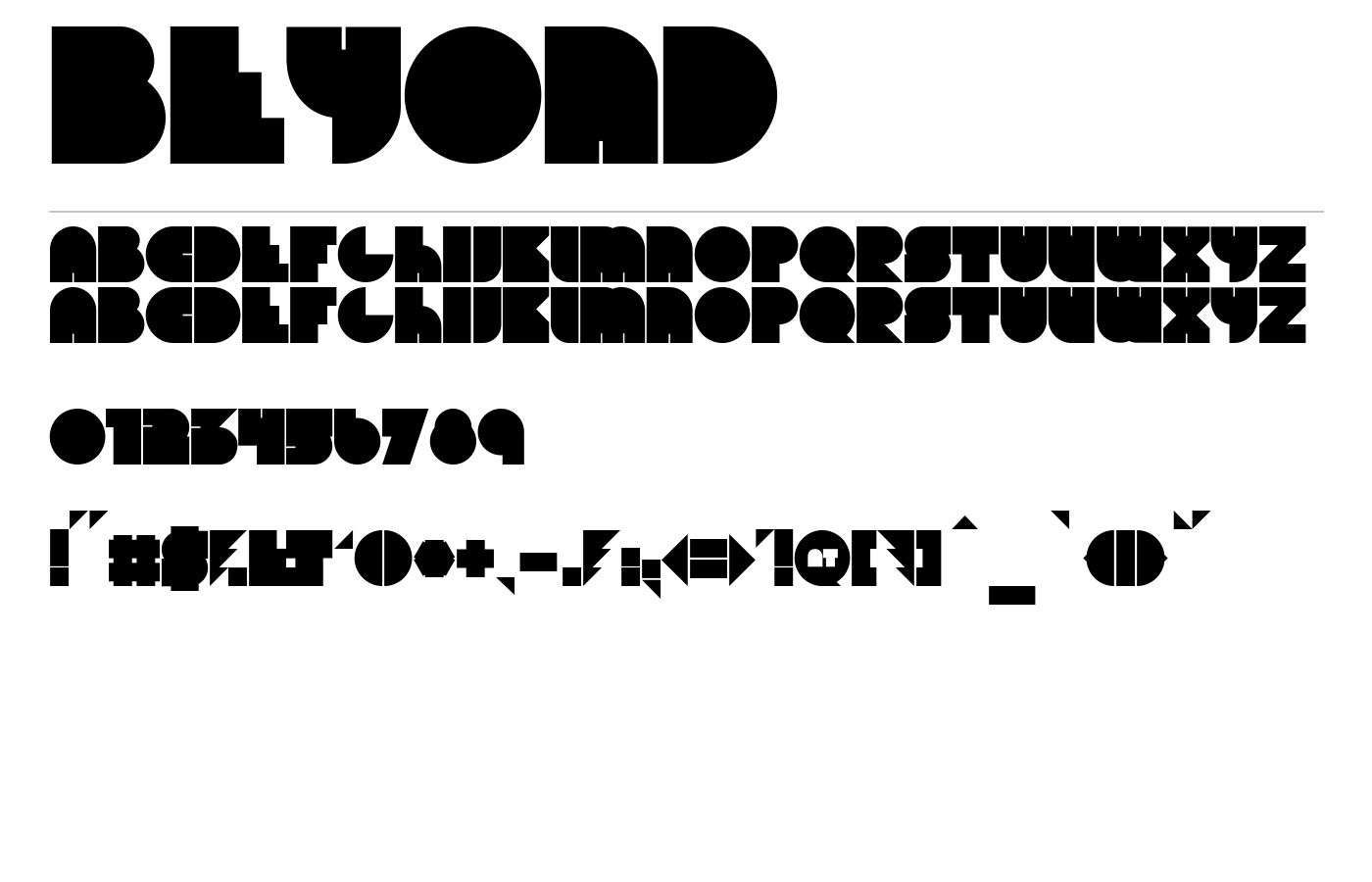
Beyond Font is a bold and striking geometric sans serif that features ultra-heavy weight and wide letterforms with a playful yet modern feel. Its solid, blocky shapes and minimal contrast create a strong visual impact, making it perfect for eye-catching headlines, logos, and creative posters where a contemporary and artistic vibe is desired. This font excels in branding and display uses where boldness and uniqueness are key to standing out.
Beyond Font
About Beyond Font
| Font family | Beyond Font |
| Designer | Aleksander Shevchuk |